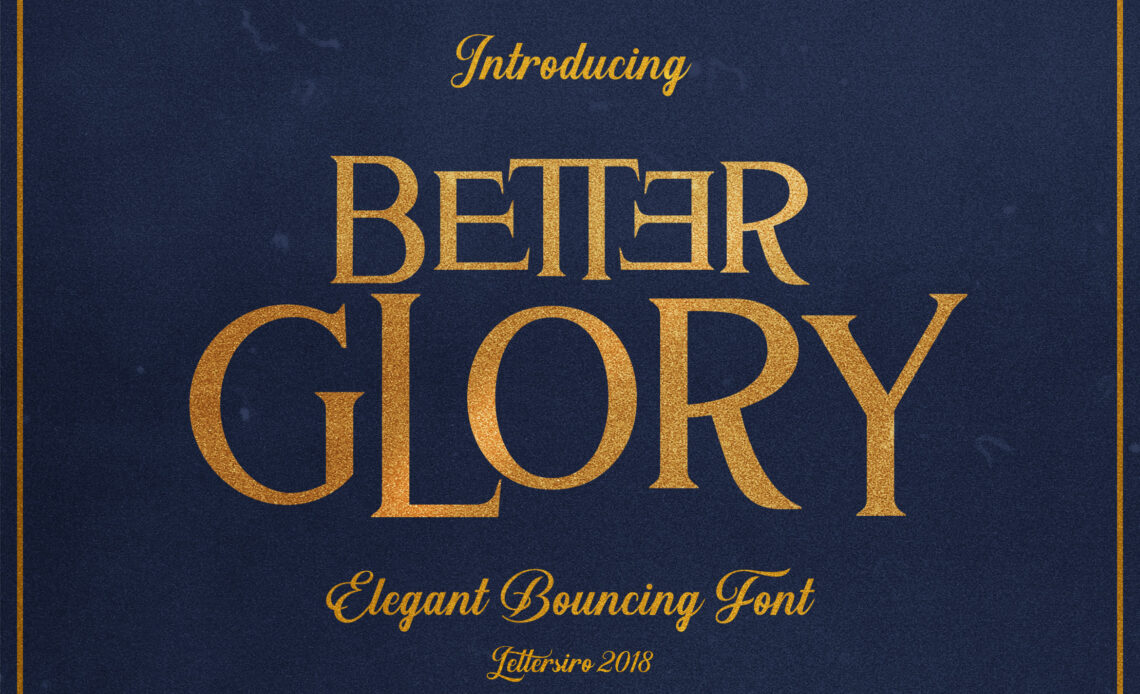
Dive into the captivating world of Better Glory, a vintage serif font that echoes the allure of bygone eras. Its enchanting bounce and playful curves paint a picture of elegance with a touch of whimsy.
As a display font, Better Glory commands attention, making it the perfect muse for alluring headlines and captivating titles. Its ability to blend classicism with a relaxed vibe makes it an ideal choice for designers seeking a font that transcends time and style.
Whether you're crafting stunning visuals for your website, social media, or print designs, Better Glory will elevate your creations with its timeless appeal. Its versatility empowers you to express a wide range of emotions, from sophisticated to playful, evoking a sense of nostalgia and delight in your audience.